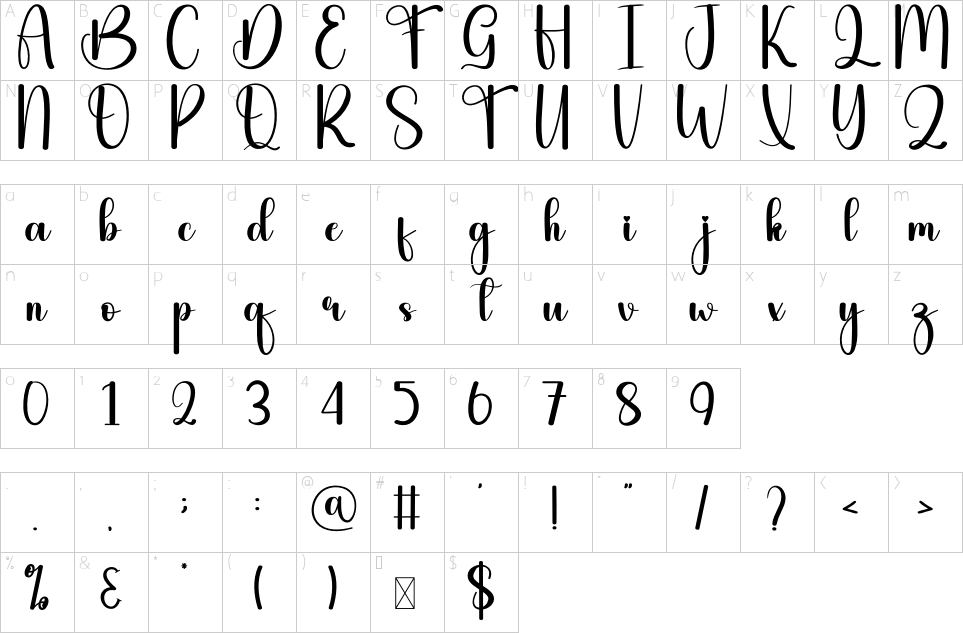
Creative Samantha Font
Designers Note
this is a sweet and friendly handwritten display font. Cute and fun, this font is ideal for writing wedding invitations, cards, or any other design that might need a playful touch!